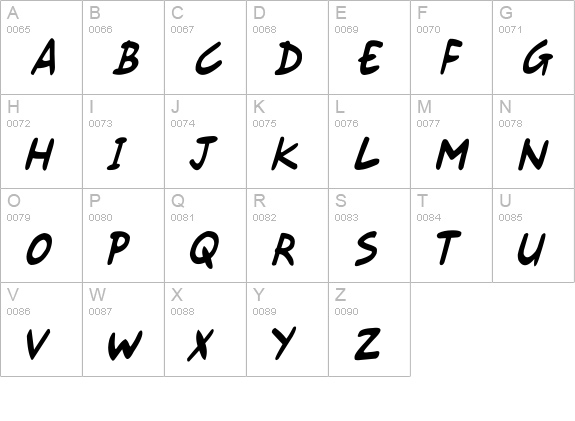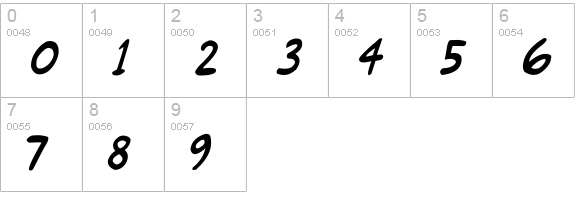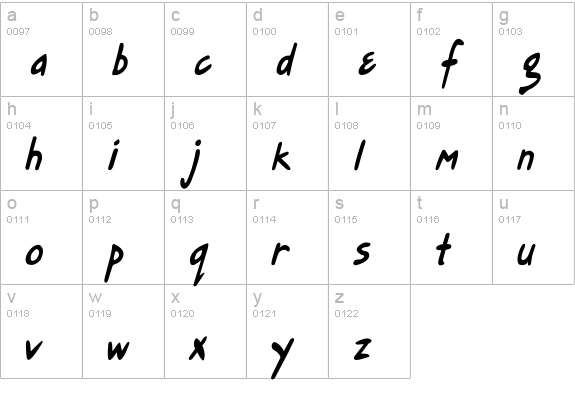
Gort's Fair Hand Regular Font Details
Gort's Fair Hand Regular is the standard, neutral variant in the Gort's typeface family \xE2\x80\x94 well suited to general body text, paragraphs, and standard typographic work.
Gort's Fair Hand Regular font is a charming and elegant typeface that exudes a sense of sophistication and creativity. With its graceful curves and balanced proportions, this font is perfect for adding a touch of class to any design project. Whether you're creating invitations, branding materials, or editorial layouts, Gort's Fair Hand Regular will elevate your work to the next level. What makes Gort's Fair Hand Regular even more appealing is that it is available for free download at FontsMarket.com. This means you can easily access and use this exquisite font in your projects without any cost. Don't miss out on the opportunity to enhance your designs with the timeless beauty of Gort's Fair Hand Regular font. Download it today and let your creativity soar!